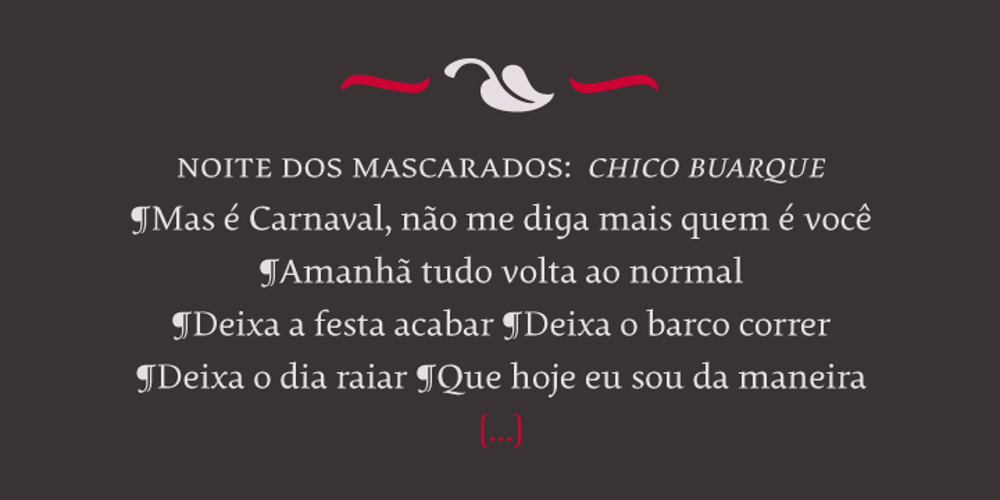
Pollen
Pollen font
Pollen Font Family was designed by Eduardo Berliner and published by TypeTogether. Pollen contains 4 styles and family package options. This typeface finds a perfect balance between technical excellence, careful design of letter forms for extended reading, and a measured dose of charm and personality. Its informal feel allows for successfully typesetting a wide range of applications, from magazines and fiction books to advertising and websites. Calligraphy, be it done with the broad-edge pen, brush, or other tools, has been fundamental in the development of Pollen. Its influence is clearly visible in the construction of the top serifs contrasting the curved bottom serifs and the fluid aspect of terminals and tails, such as on “g” and “r”. The shapes of the diagonal letters are based on a less formal calligraphic model, but still uses the broad edge pen. ­The letters were then subject to a further process of pencil drawing and digital re-interpretation, which gave them the final shape. The designs of “e” and “c” are derived from drawings made with only one continuous line, with the pencil always touching the paper. The letters “g” and “y” express the intention to bring informal elements to a typeface intended for long text reading, usually characteristic of casual writing. Pollen consists of 3 basic styles with an extended OpenType Pro character set and large language support, perfectly serving the most common typographic needs.